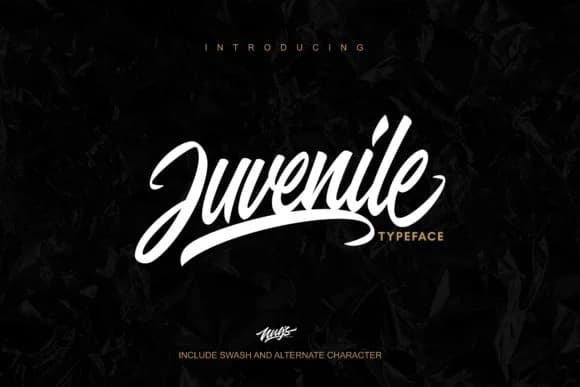
1 / 6About Juvenile Font
Juvenile Font by Andrie Nugrie is a dynamic brush-stroke script typeface that brings authentic personality and movement to any creative project requiring hand-lettered character. Capturing the organic warmth of traditional brush lettering, it maintains excellent legibility across both digital and print applications. The swash characteristics add visual interest and dimensional flourishes without sacrificing readability, making it equally effective for headlines, larger body text, and decorative design elements where expressive typography plays a central role in brand communication.
This font shines for custom wedding invitations with flowing script details, vintage product labels that demand character and warmth, and personalized merchandise branding where authentic handmade aesthetics matter to your audience. Whether you're designing craft business cards, creating layered scrapbooking layouts, developing boutique cosmetics packaging, or building social media graphics for creative entrepreneurs, Juvenile delivers an authentic, organic quality that instantly distinguishes your work from generic alternatives. The energetic brush-driven letterforms possess the personality and artisanal feel that DIY makers and small business owners seek when they want their branding to feel genuinely handcrafted rather than mass-produced or corporate.
Juvenile Font is a script font that shines as a display or heading face. Pair it with a clean sans-serif or serif font for body text β the contrast creates a clear hierarchy while the two styles stay balanced and easy to read.
Juvenile Font